Bellarica Esthetics
Location:
Montreal
Year:
2024
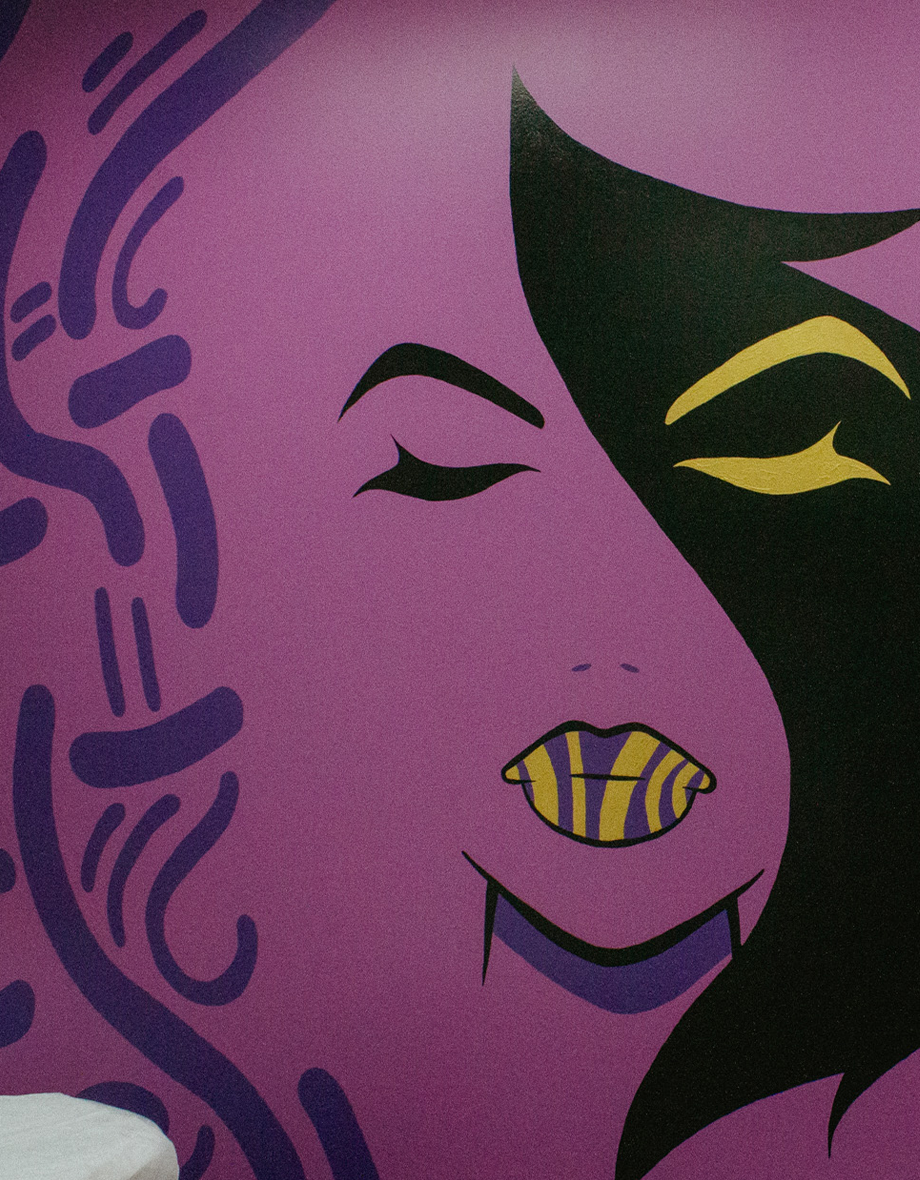
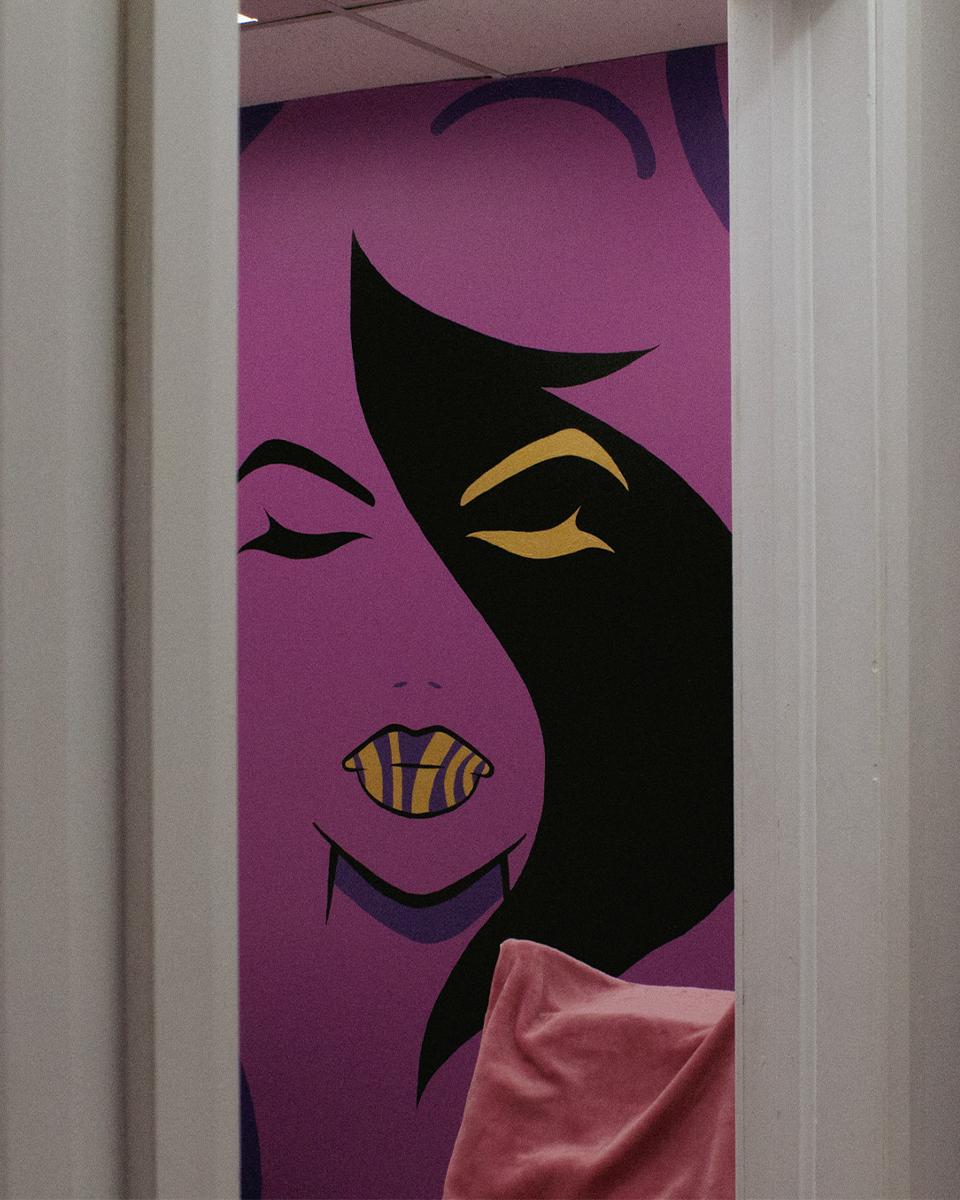
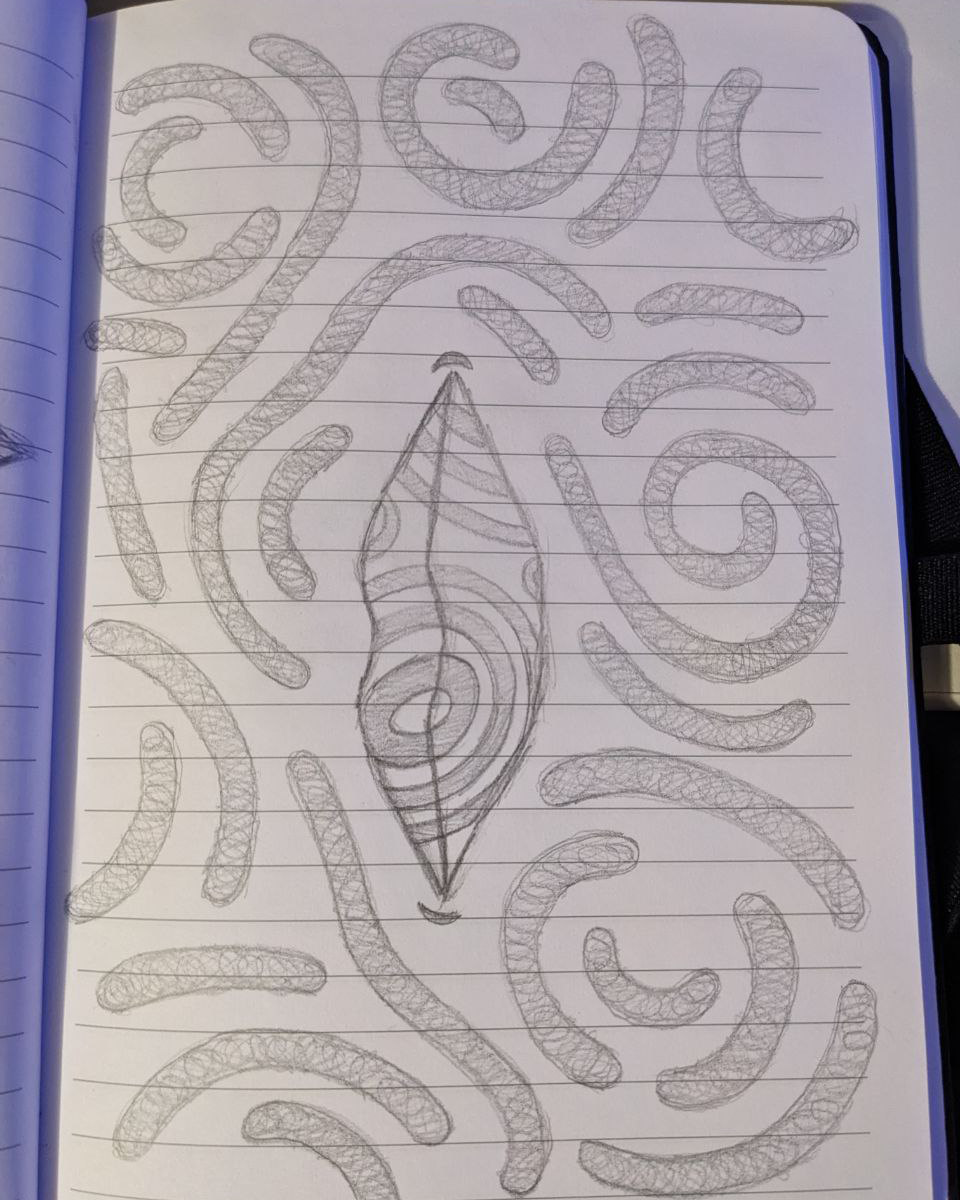
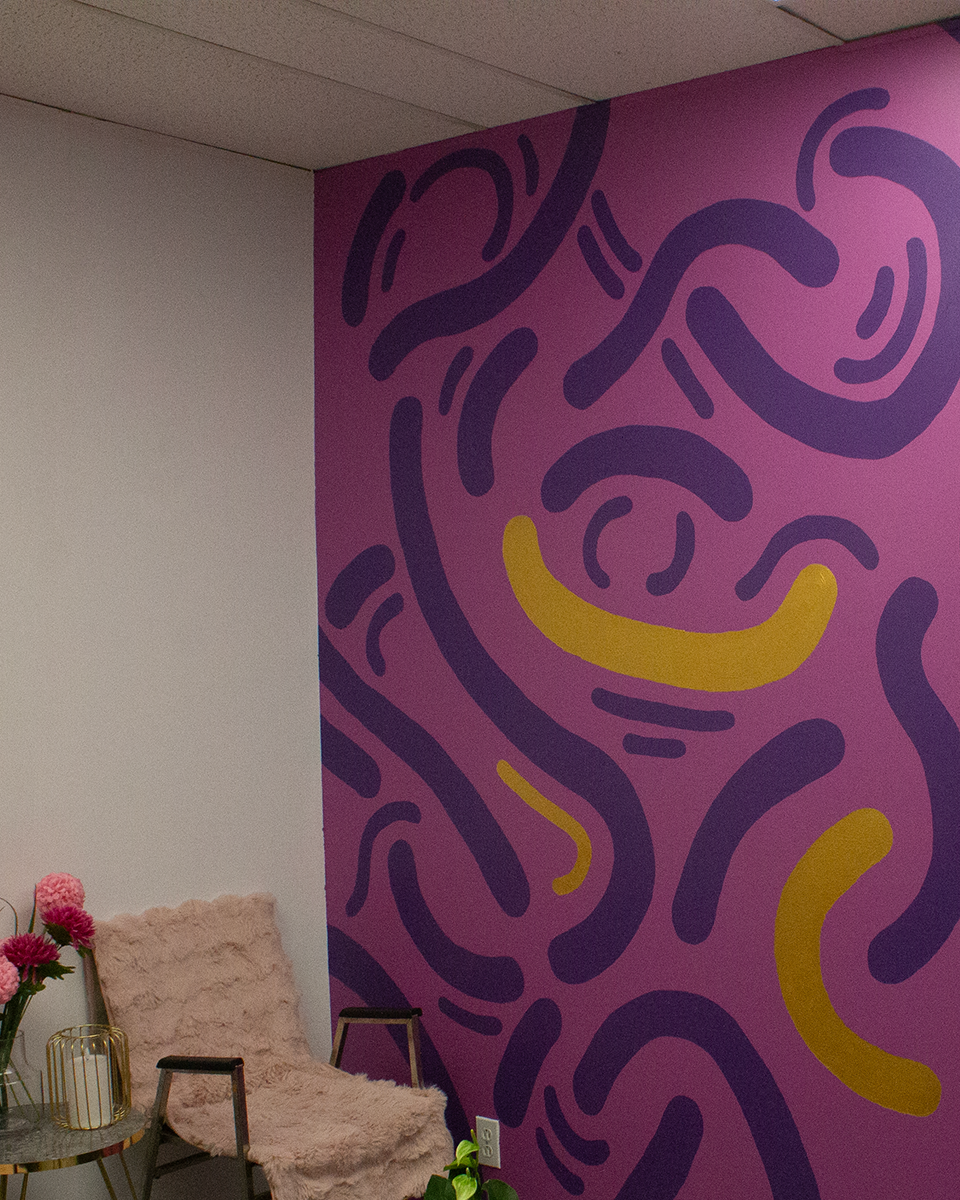
About the Mural
This design leans into a more fluid, flowing aesthetic, using rich royal tones like purple and gold. The background movement subtly echoes the textures and forms of hair, tying it back to the overall theme while creating an elegant, elevated look.
- Establisment: Bellarica Médico-Esthétique